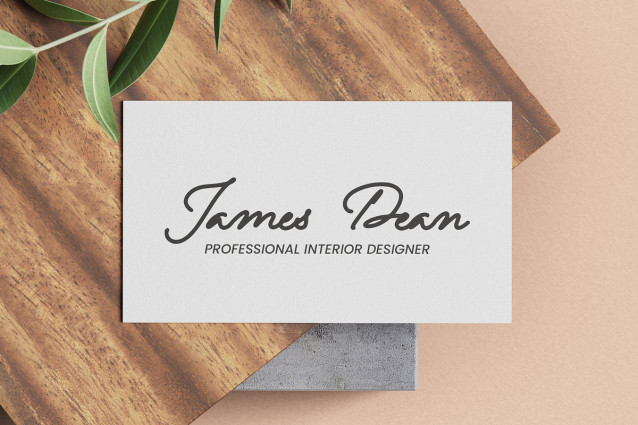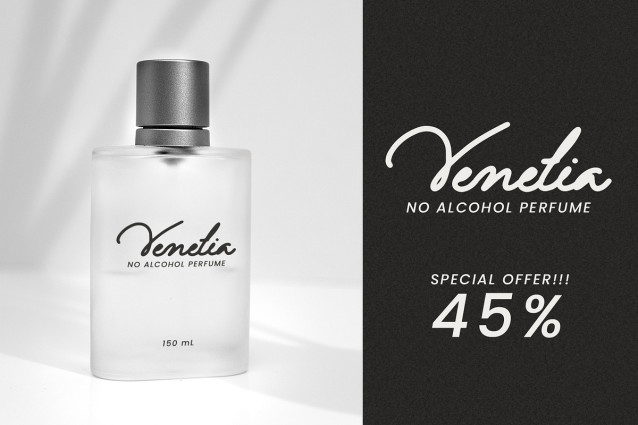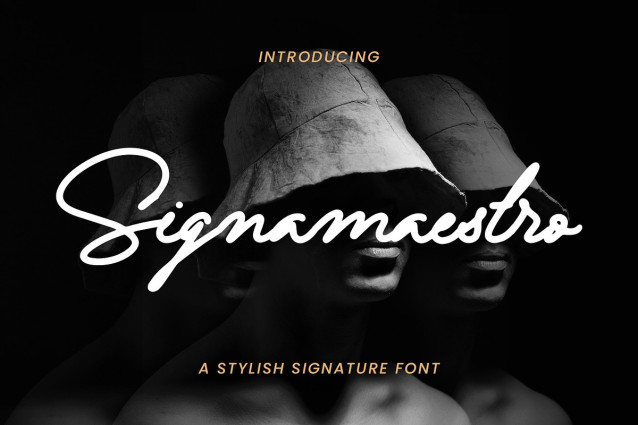
Signamaestro Handwritten Font
Signamaestro Handwritten Font – Stylish Signature Script is a Quality script that is written casually and quickly Signamaestro is perfect for homeware designs,branding projects, Logo, design, Quotes, Product packaging, Photography, Watermark